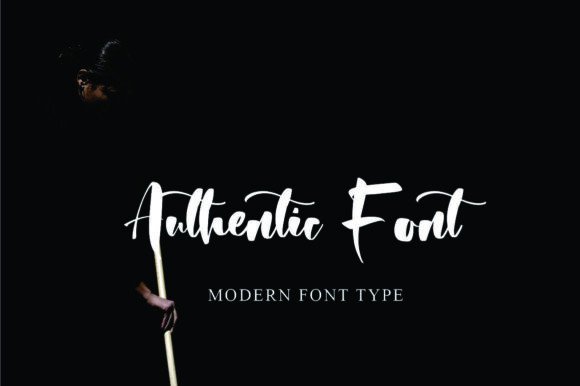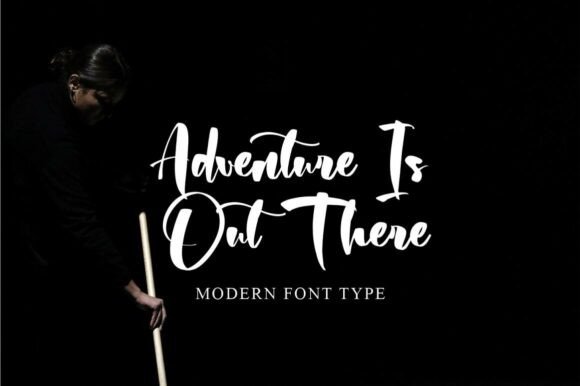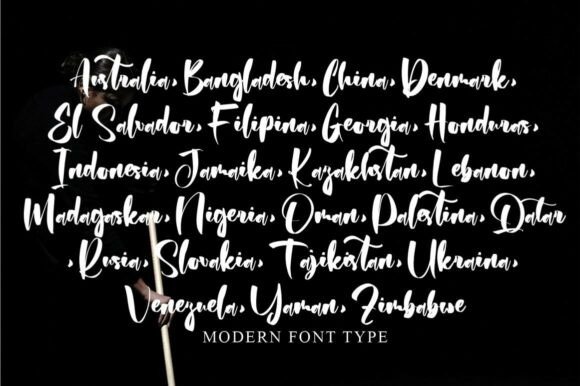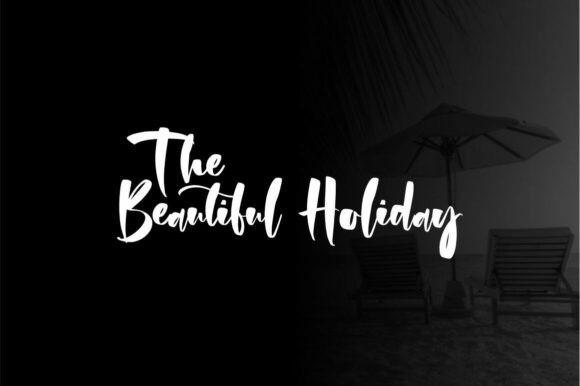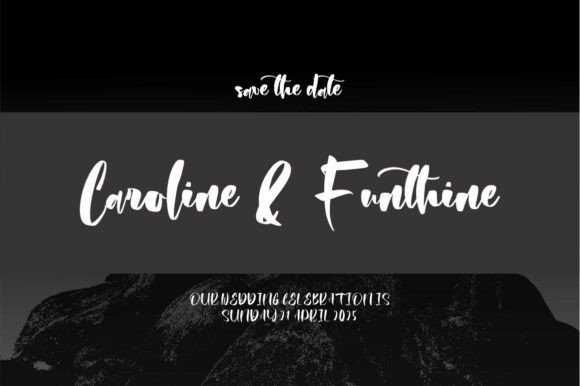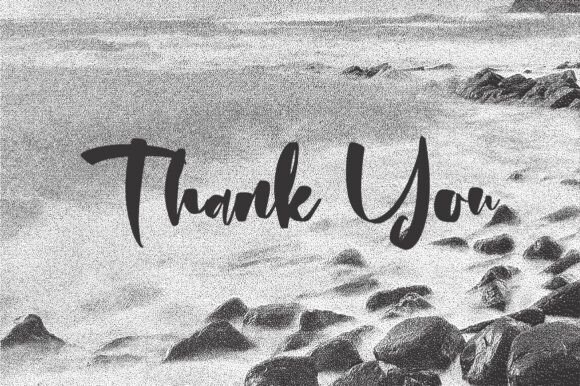
Baitum Samita Font: Elevate Your Designs with Expressive Handwritten Style
In the world of typography, fonts play a crucial role in conveying the tone and personality of a design. For designers and crafters looking to add a touch of elegance and whimsy to their work, Baitum Samita font is an excellent choice. This expressive handwritten font is designed to make your designs stand out, whether you’re working on a logo, social media post, movie title, book title, or even a long letter text.
What Makes Baitum Samita Font Special?
Baitum Samita font boasts modern pen strokes, fun characters, and little ligatures that give it a unique and playful feel. The font also features alternate lowercase letters and swashes, allowing you to add a personal touch to your designs. With Baitum Samita, you can create stunning work that captures the essence of your message.
One of the key benefits of Baitum Samita font is its versatility. This font is perfect for a wide range of design applications, including:
- Logo design: Create a memorable brand identity with Baitum Samita’s unique and expressive style.
- Social media: Add a touch of personality to your social media posts and stories with this eye-catching font.
- Movie titles: Give your movie titles a cinematic feel with Baitum Samita’s bold and elegant style.
- Book titles: Make your book titles stand out with this beautiful and expressive font.
- Short texts and long letter texts: Baitum Samita font is suitable for both short and long texts, making it an excellent choice for designers and crafters.
Pairing Options
Baitum Samita font pairs well with both sans and serif fonts, making it an excellent choice for secondary text fonts. You can use it as a headline font and pair it with a sans-serif font for body text, or use it as a body text font with a serif font for headlines. The possibilities are endless!
Design Tips and Inspiration
To get the most out of Baitum Samita font, here are some design tips and inspiration:
- Experiment with different font sizes and colors to create visual hierarchy and emphasis.
- Use Baitum Samita font to add a personal touch to your designs, such as in illustrations, graphics, and icons.
- Combine Baitum Samita font with images and textures to create stunning visual effects.
- Don’t be afraid to mix and match different font styles and combinations to create a unique look.
In conclusion, Baitum Samita font is an excellent choice for designers and crafters looking to add a touch of elegance and whimsy to their work. With its modern pen strokes, fun characters, and versatility, this expressive handwritten font is perfect for a wide range of design applications. Whether you’re working on a logo, social media post, movie title, book title, or long letter text, Baitum Samita font is sure to elevate your designs and make them stand out.